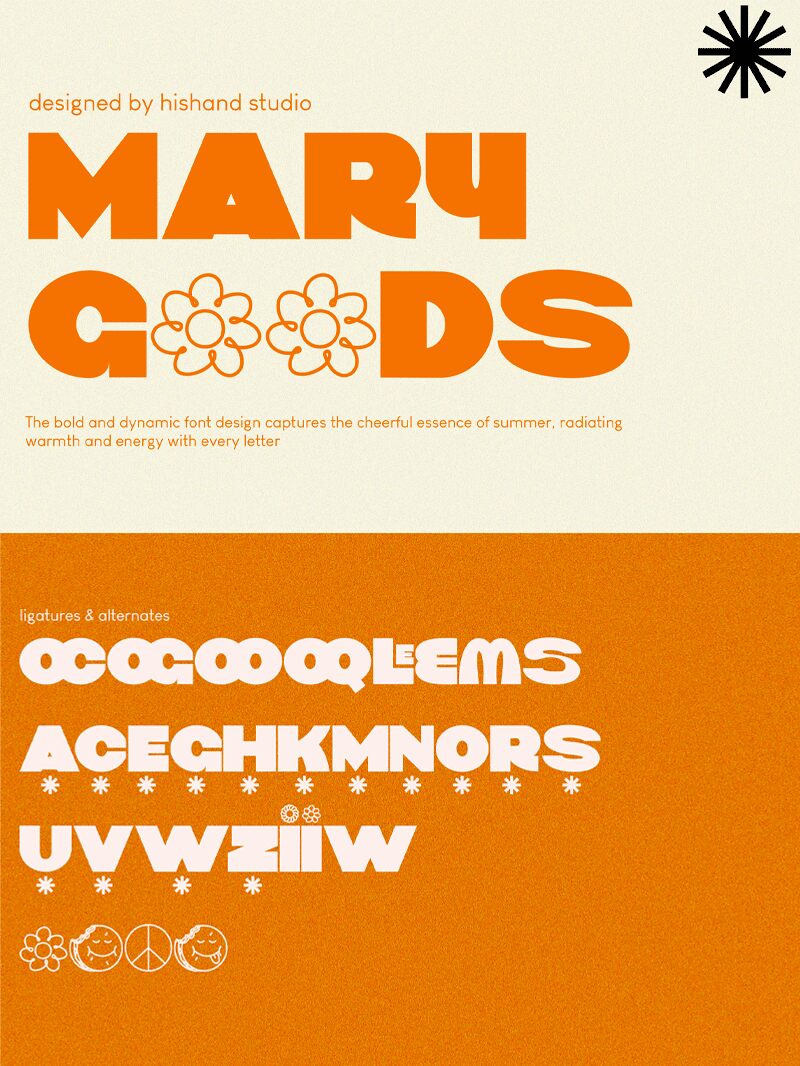
Mary Goods font was designed by Hishand Studio. Mary Goods is a bold and expanded font with sans-serif geometric shapes, high contrast, modern clean lines, balanced proportions and strong presence. Demanding the attention of the eye Mary Goods font will stand out in any setting. Ideal for shouting quotes or saying something simple that needs to be seen;)
Use this font on quotes, social media templates, portfolios headings like architecture posters photography poster etc, magazine titles & covers fashion designs branding decor/commercial...